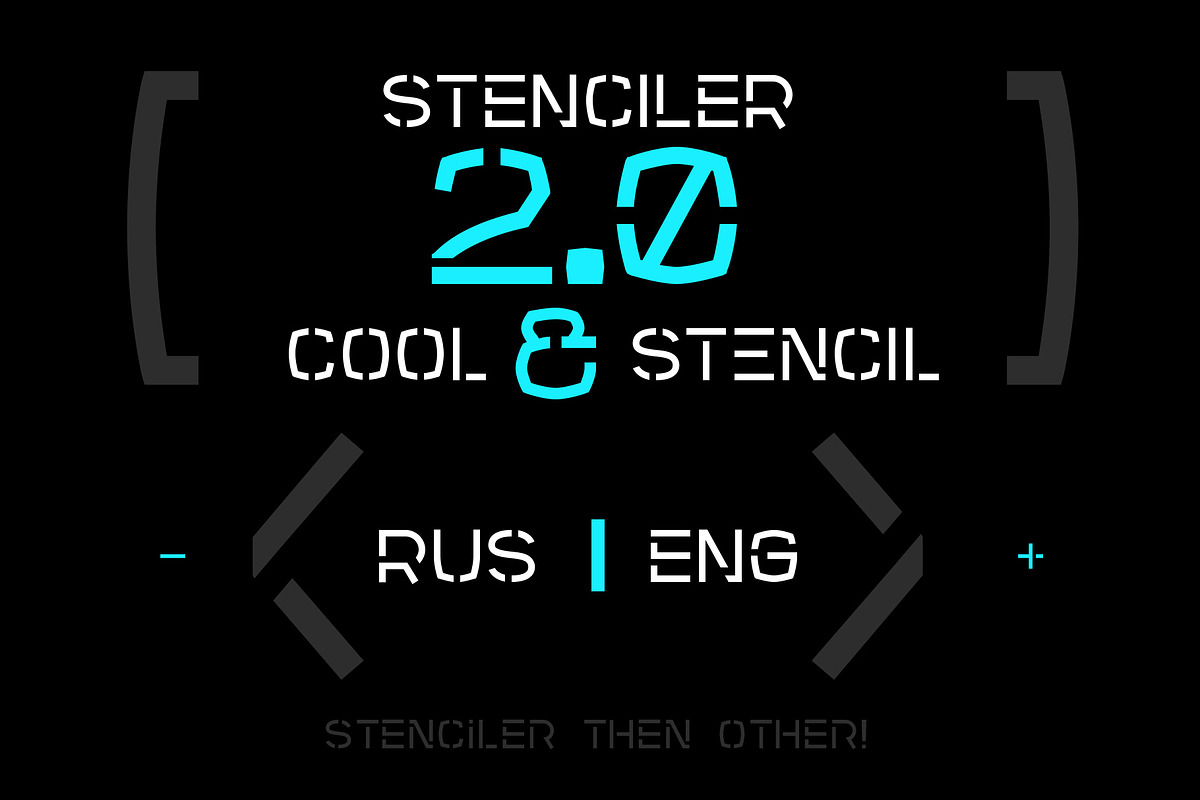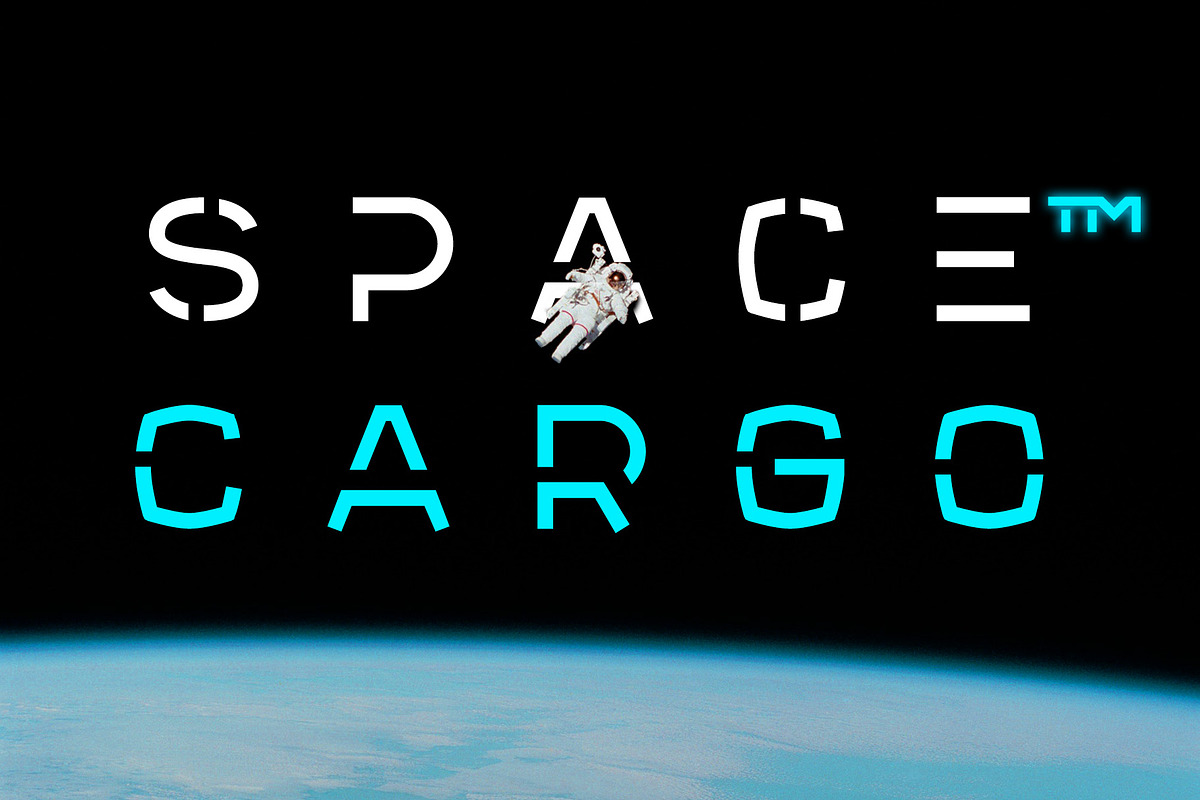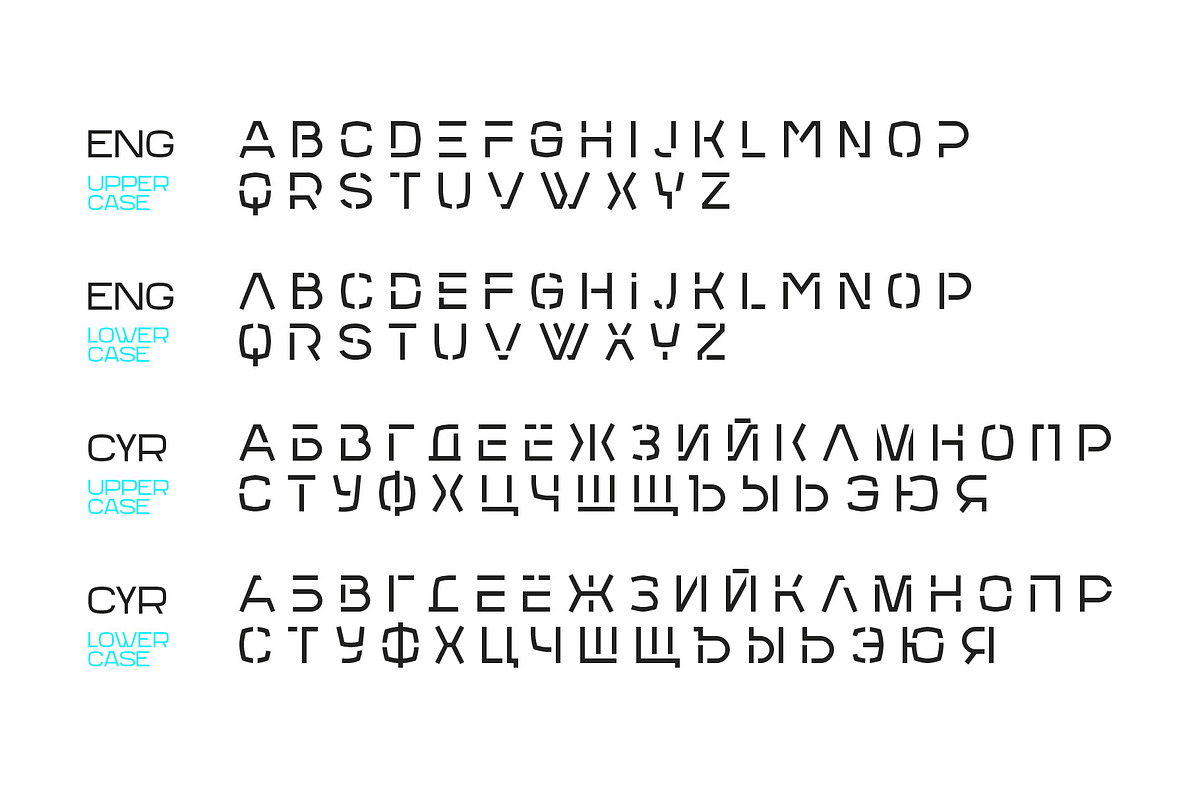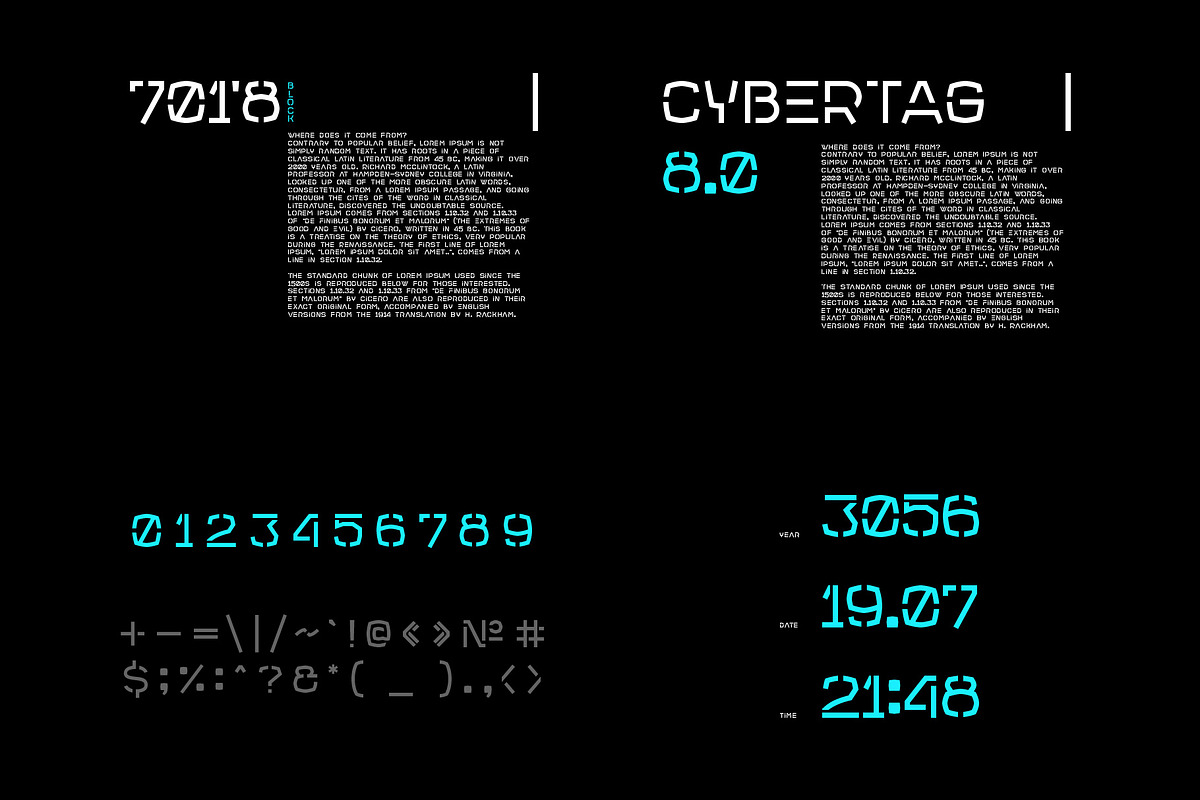
Stenciler | Stencil font
Stenciler is a sans serif, stencil, all caps font. Latin and Cyrillic. Similar letters in Latin and Cyrillic looks different.
Stenciler | Stencil font by Level up fits naturally into Branding, posters, packaging, typography.